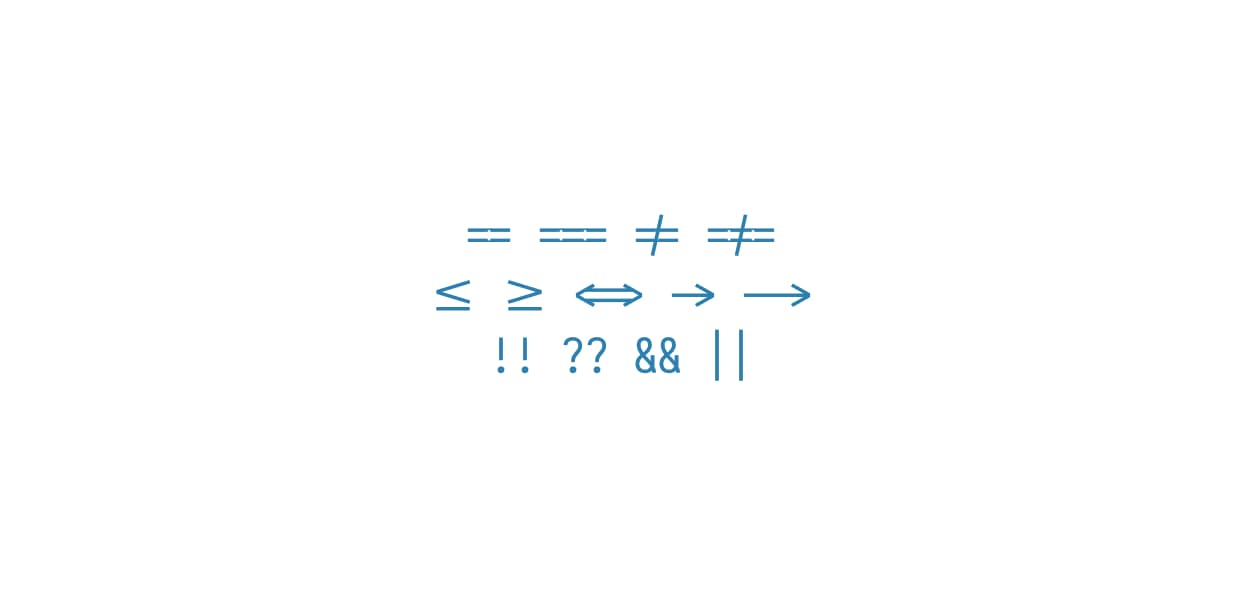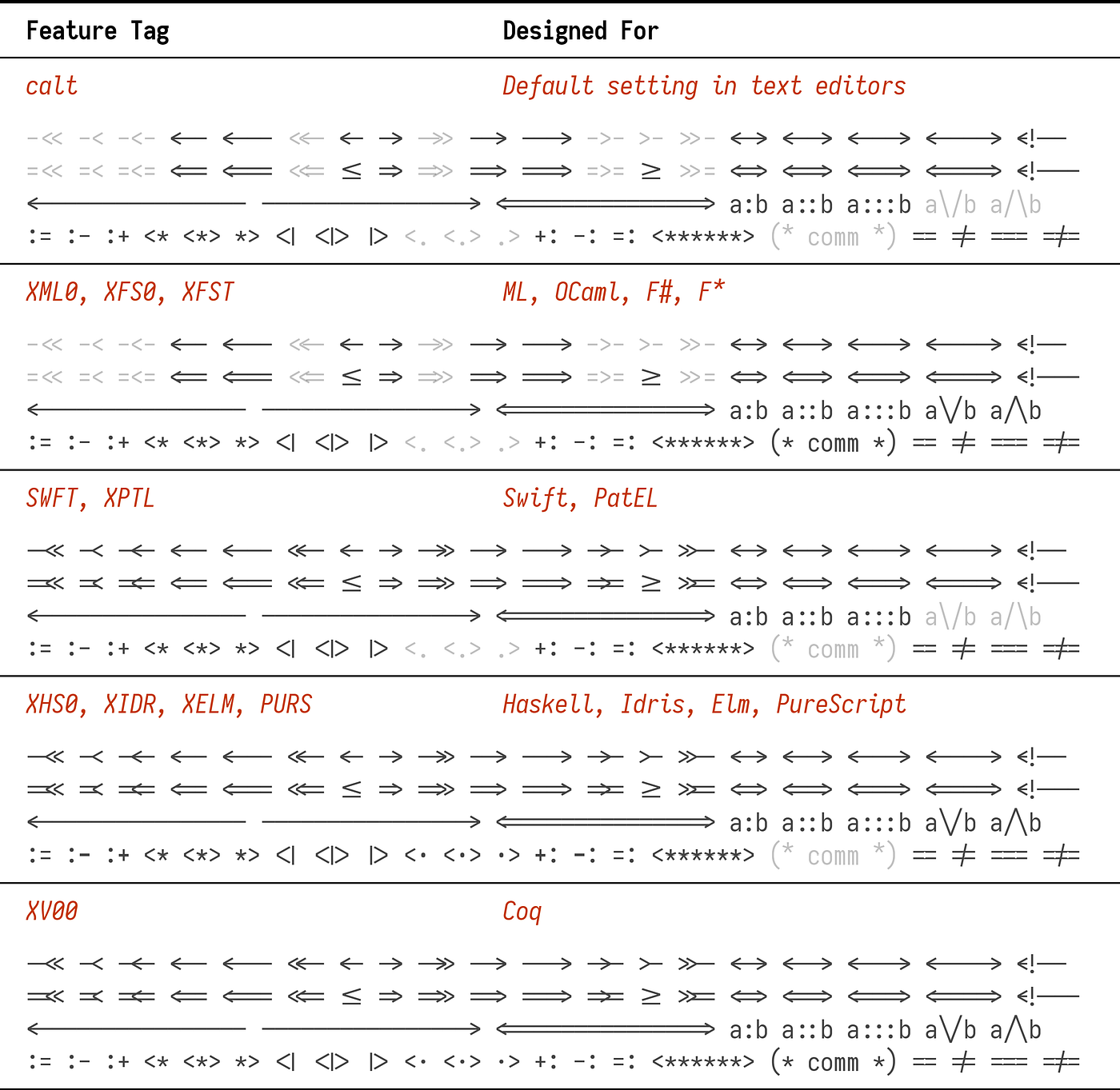
Best Coding Fonts With Ligatures . This would be my recommendation,. Get yourself a good monospace font and stick with it. Three of the most interesting and thoughtful monospaced programming fonts with ligatures are fira code, monoid, and hasklig. Source code pro is a good monospaced font for coding and this “extension” makes it even better. Hack and ibm plex mono are both solid ones. Fira code, hasklig, and jetbrains mono are probably your best bets out of the 22 options considered.
Three of the most interesting and thoughtful monospaced programming fonts with ligatures are fira code, monoid, and hasklig. Hack and ibm plex mono are both solid ones. This would be my recommendation,. Source code pro is a good monospaced font for coding and this “extension” makes it even better. Get yourself a good monospace font and stick with it. Fira code, hasklig, and jetbrains mono are probably your best bets out of the 22 options considered.
Best Coding Fonts With Ligatures Three of the most interesting and thoughtful monospaced programming fonts with ligatures are fira code, monoid, and hasklig. Fira code, hasklig, and jetbrains mono are probably your best bets out of the 22 options considered. Get yourself a good monospace font and stick with it. Source code pro is a good monospaced font for coding and this “extension” makes it even better. Hack and ibm plex mono are both solid ones. Three of the most interesting and thoughtful monospaced programming fonts with ligatures are fira code, monoid, and hasklig. This would be my recommendation,.
Best free programming fonts — FontsArena Best Coding Fonts With Ligatures Get yourself a good monospace font and stick with it. Three of the most interesting and thoughtful monospaced programming fonts with ligatures are fira code, monoid, and hasklig. Fira code, hasklig, and jetbrains mono are probably your best bets out of the 22 options considered. Source code pro is a good monospaced font for coding and this “extension” makes it. Best Coding Fonts With Ligatures.
Ligatures in programming fonts Butterick’s Practical Typography Best Coding Fonts With Ligatures Fira code, hasklig, and jetbrains mono are probably your best bets out of the 22 options considered. Hack and ibm plex mono are both solid ones. Three of the most interesting and thoughtful monospaced programming fonts with ligatures are fira code, monoid, and hasklig. This would be my recommendation,. Get yourself a good monospace font and stick with it. Source. Best Coding Fonts With Ligatures.
5 free monospaced fonts with coding ligatures Better Type Best Coding Fonts With Ligatures Fira code, hasklig, and jetbrains mono are probably your best bets out of the 22 options considered. Hack and ibm plex mono are both solid ones. This would be my recommendation,. Source code pro is a good monospaced font for coding and this “extension” makes it even better. Three of the most interesting and thoughtful monospaced programming fonts with ligatures. Best Coding Fonts With Ligatures.
14 Best Free Fonts for Programming // Zeno Rocha Best Coding Fonts With Ligatures Fira code, hasklig, and jetbrains mono are probably your best bets out of the 22 options considered. Three of the most interesting and thoughtful monospaced programming fonts with ligatures are fira code, monoid, and hasklig. Hack and ibm plex mono are both solid ones. This would be my recommendation,. Source code pro is a good monospaced font for coding and. Best Coding Fonts With Ligatures.
15 Best Programming Fonts for Coding and Development (Free!) Best Coding Fonts With Ligatures Fira code, hasklig, and jetbrains mono are probably your best bets out of the 22 options considered. This would be my recommendation,. Hack and ibm plex mono are both solid ones. Three of the most interesting and thoughtful monospaced programming fonts with ligatures are fira code, monoid, and hasklig. Source code pro is a good monospaced font for coding and. Best Coding Fonts With Ligatures.
5 free monospaced fonts with coding ligatures Better Type Best Coding Fonts With Ligatures Get yourself a good monospace font and stick with it. Three of the most interesting and thoughtful monospaced programming fonts with ligatures are fira code, monoid, and hasklig. Source code pro is a good monospaced font for coding and this “extension” makes it even better. Fira code, hasklig, and jetbrains mono are probably your best bets out of the 22. Best Coding Fonts With Ligatures.
6 Best Fonts For Programming In 2022 Dev Community vrogue.co Best Coding Fonts With Ligatures Fira code, hasklig, and jetbrains mono are probably your best bets out of the 22 options considered. Source code pro is a good monospaced font for coding and this “extension” makes it even better. Three of the most interesting and thoughtful monospaced programming fonts with ligatures are fira code, monoid, and hasklig. Hack and ibm plex mono are both solid. Best Coding Fonts With Ligatures.
11 Best monospace programming fonts with ligatures as of 2022 Slant Best Coding Fonts With Ligatures Source code pro is a good monospaced font for coding and this “extension” makes it even better. Fira code, hasklig, and jetbrains mono are probably your best bets out of the 22 options considered. This would be my recommendation,. Three of the most interesting and thoughtful monospaced programming fonts with ligatures are fira code, monoid, and hasklig. Hack and ibm. Best Coding Fonts With Ligatures.